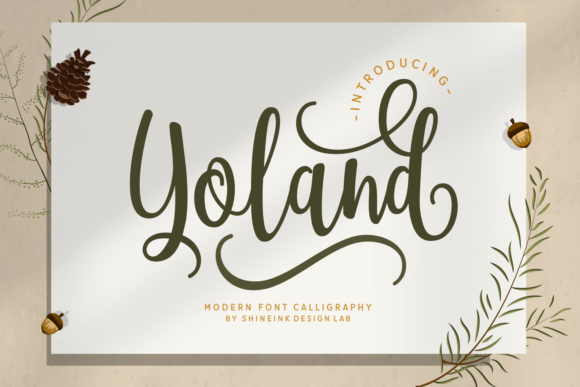
In a world saturated with digital noise, your brand's voice must cut through the clutter, leaving an indelible mark on your audience's minds. Yoland Font, a stunning script typeface from the creative minds at shineink.designlab, empowers you to do just that.
Yoland is not just a font; it's an invitation to embark on a journey back in time, where elegance and charm reigned supreme. Its smooth, flowing curves evoke a sense of nostalgia, while its perfectly balanced design exudes timeless sophistication. Whether you're crafting a wedding logo, a fashion brand identity, or an editorial design masterpiece, Yoland Font is your perfect partner.
With a character set meticulously crafted to capture the essence of vintage charm, Yoland Font opens up a world of creative possibilities. Its graceful strokes seamlessly intertwine, creating a visual symphony that dances across your designs. From sweeping wedding invitations to captivating social media posts, Yoland Font adds a touch of timeless elegance to every project it graces.
But Yoland Font is more than just a pretty face. It's a font engineered for effortless use, ensuring that your creative vision is brought to life with ease. Encoded with PUA, Yoland Font grants you seamless access to a treasure trove of glyphs and swashes, empowering you to add intricate details and flourishes to your designs with a few simple clicks.
Yoland Font is the perfect choice for those who seek to create designs that resonate with the heart. Its vintage charm evokes a sense of nostalgia, while its modern sensibility ensures that your designs stay relevant and impactful. With Yoland Font as your creative companion, you'll craft designs that whisper timeless elegance, leaving a lasting impression on your audience.
So, why settle for ordinary when you can unleash the extraordinary? Embrace the timeless beauty of Yoland Font today and elevate your designs to new heights of sophistication. As you watch your creations come to life, you'll realize that Yoland Font is more than just a font; it's a gateway to a world where elegance and charm reign supreme.